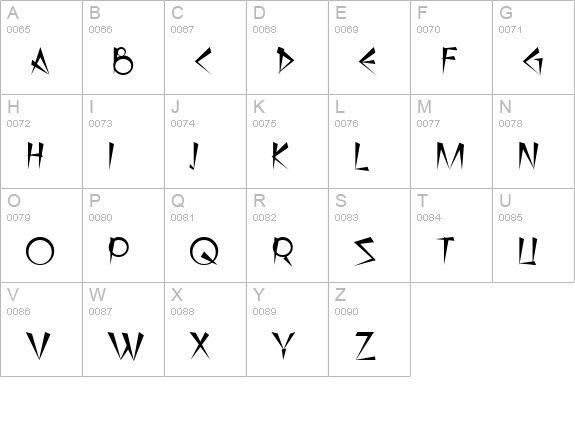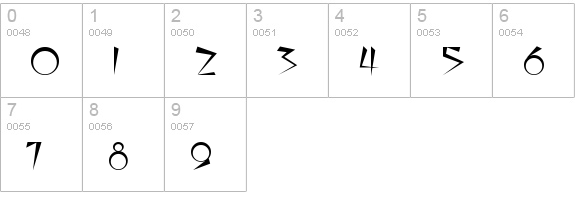
Demotte Font Details
Demotte font is a versatile and elegant typeface that exudes sophistication and style. With its unique blend of modern and classic elements, Demotte is perfect for a wide range of design projects, from branding to editorial design. Its clean lines and subtle curves make it easy to read while adding a touch of refinement to any layout. What sets Demotte font apart is not only its aesthetic appeal but also its accessibility. This high-quality font is available for free download at FontsMarket.com, making it a valuable resource for designers looking to elevate their work without breaking the bank. Whether you're working on a logo, website, or print materials, Demotte font is sure to make a lasting impression.